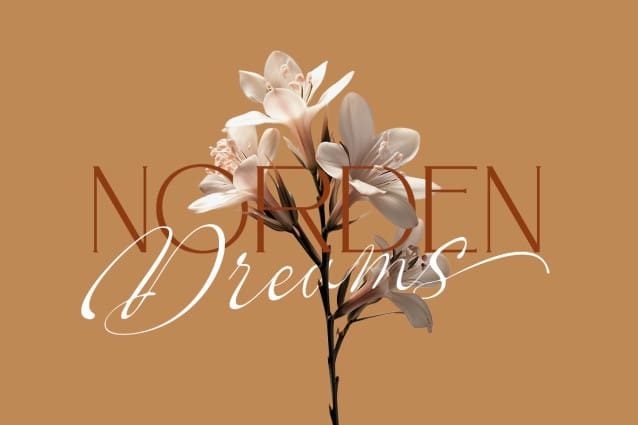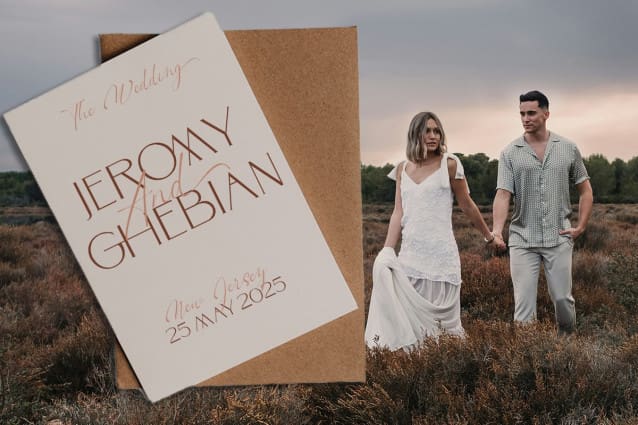
Skypiea Romantic Font Duo
Skypiea Romantic Font Duo. which comes with a combination of modern and elegant fonts, namely serif and signature style. You can combine it to make beautiful typography. This hand Serif style makes it perfect for use in all your design projects be it logos, labels, packaging designs, blog titles, posters, wedding designs, social media posts, Instagram designs, card invitations, art quotes, home decor, book / cover titles , etc.